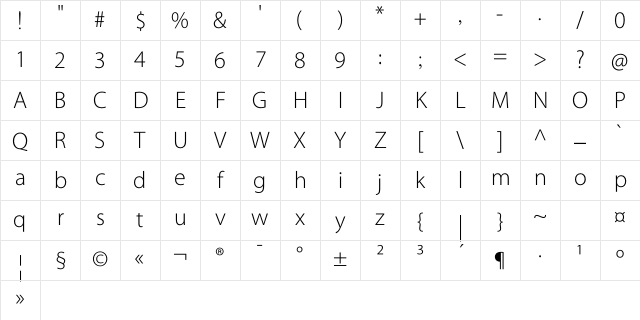
Complete BPG Afxazeti Ovaluri Light glyph index. Displaying only characters natively supported by BPG Afxazeti Ovaluri Light font.
BPG Afxazeti Ovaluri is a composed and adaptable typeface that performs quietly and consistently across a wide range of design contexts. Its slender proportions lend an understated elegance to any composition.
Pro Tip: Use BPG Afxazeti Ovaluri in both headline and body roles to test its range before committing to a single application.